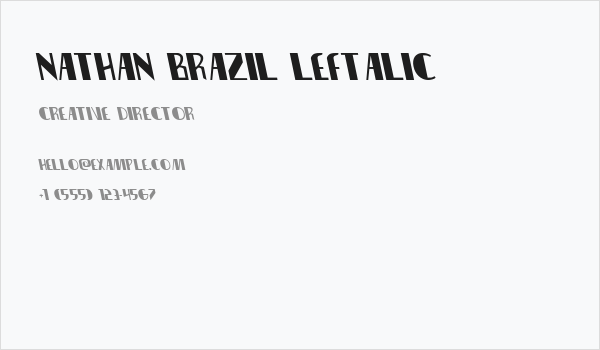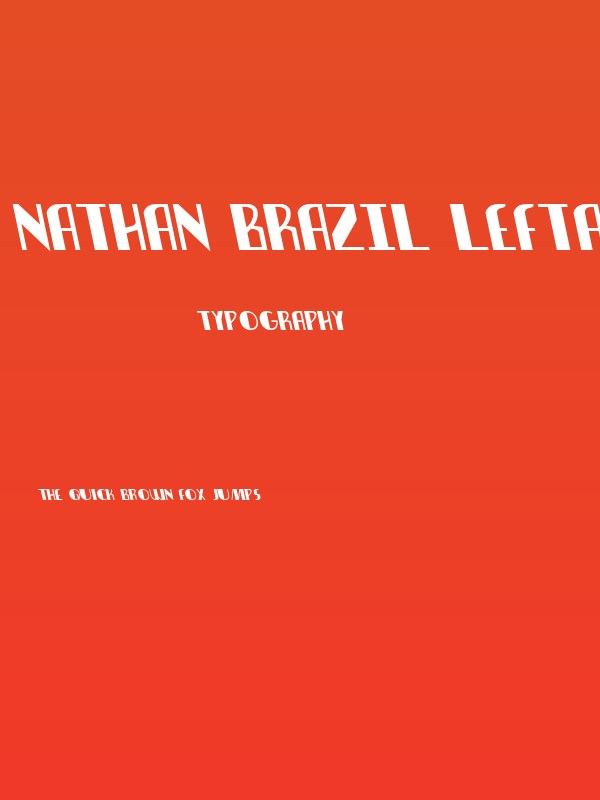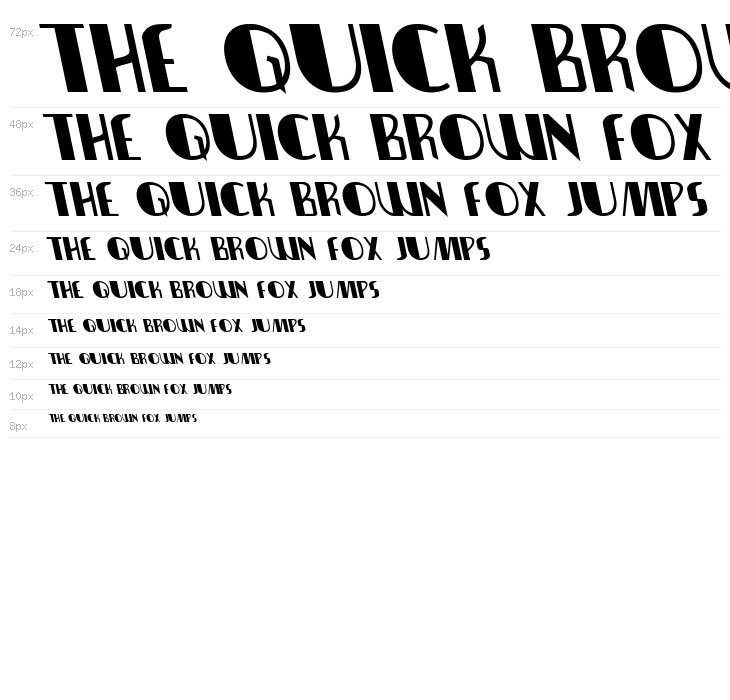
Nathan Brazil Leftalic Font
Nathan Brazil Leftalic Description
This font features a bold and dynamic design with a distinct slant to the left, giving it a unique and modern appearance. The characters are crafted with sharp angles and geometric shapes, creating a sense of movement and energy. The uppercase and lowercase letters maintain a consistent style, with the uppercase being slightly more pronounced. Numbers and special characters follow the same design principles, ensuring uniformity across all glyphs. The overall style is eye-catching and suitable for projects that require a contemporary and edgy look.
Proposed ProjectsIdeal for branding, posters, and modern digital designs that require a striking and unconventional typeface.